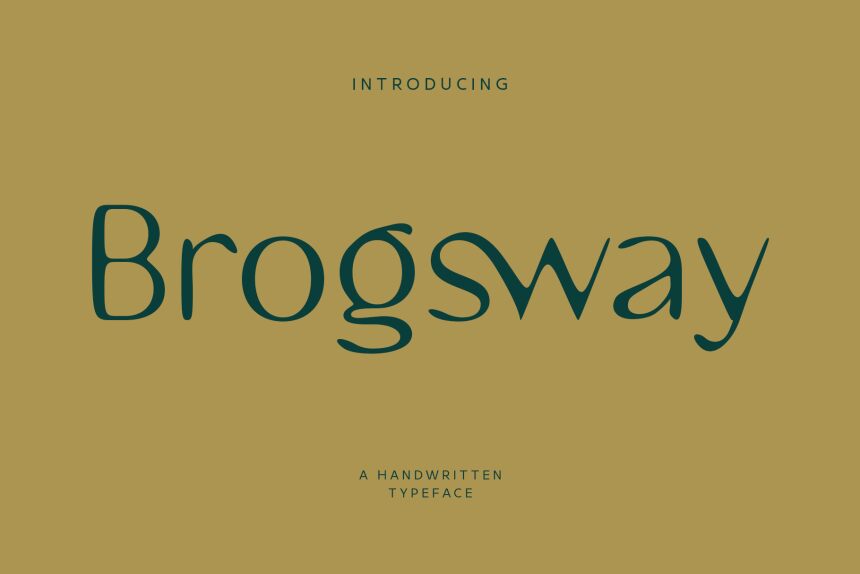
Brogsway Regular
Brogsway, a retro-inspired display font created by Muhammad Muammar of Limitype, captivates with its vintage charm and bold character. Featuring a distinctive blend of sharp serifs and fluid strokes, this font exudes a sense of timeless elegance and effortless sophistication. The intricate balance of weight and negative space gives Brogsway a striking visual presence, making it a standout choice for attention-grabbing headlines, impactful branding, and eye-catching design projects.
The retro-inspired aesthetic of Brogsway lends itself seamlessly to a variety of design contexts, from vintage-themed publications and packaging to modern, minimalist layouts. Its versatility shines through, allowing designers to create a range of moods, from nostalgic and warm to bold and contemporary.